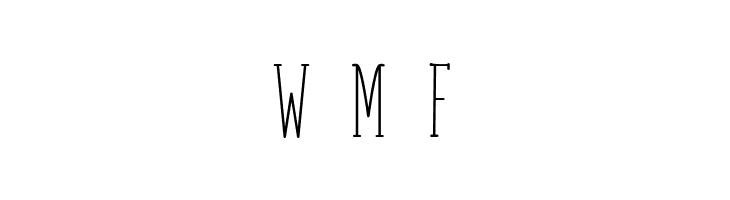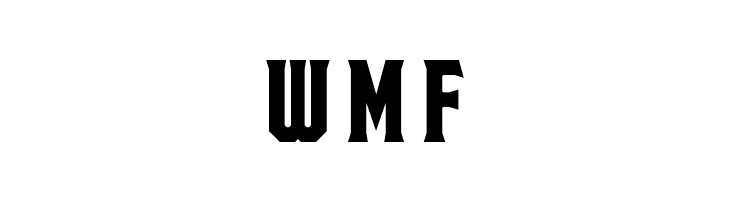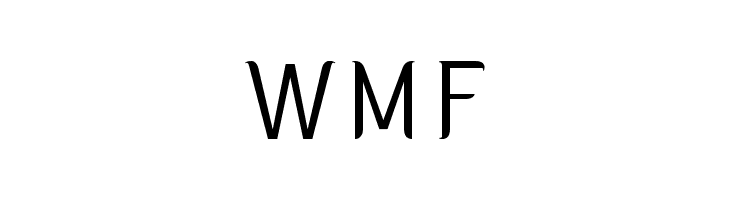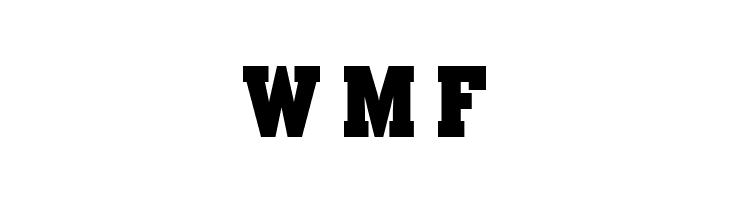
( Fonts by HENRIavecunK )
A bold, geometric font with a vintage, poster-like aesthetic.
( Caio Henrique do Rosario Silva )
A modern, elegant font with a clean and sophisticated design.
( HENRIavecunK - Henrik )
Bold, angular font with sharp serifs and a vintage-modern appeal.
( HENRIavecunK - Henrik )
A bold, stencil-style font with sharp, angular edges and a military-inspired design.
( HENRIavecunK - Henrik )
A bold slab serif font with thick serifs and a strong, impactful presence.
( HENRIavecunK - Henrik )
A modern gothic font with tall, narrow letterforms and a hand-drawn feel.
( Pierre-Henri Ramboz - matoilnet.com )
A modern, rounded font with a geometric and monospaced appearance.
( HENRIavecunK )
A tall, thin, and modern sans-serif font with a sleek, elegant appearance.